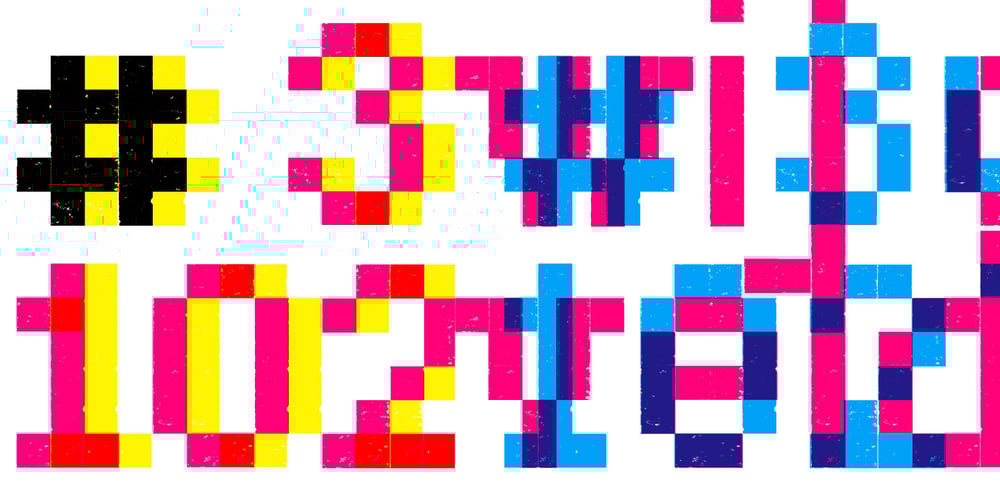
DF A Bit
DF A Bit font
DF A Bit Font Family was designed by Ko Sliggers and published by Dutchfonts. DF A Bit contains 1 styles and family package options. DF A Bit is made for screen display which is the final form of a lot of information nowadays. But there is more in this BIT… in display sizes it unfolds it’s skin, a beautiful ink on paper structure caused by the letterpress printing of copper lines. Analogue BITS indeed. With all the wealth of the ‘non perfect’, to please the eye and to satisfy the mind.